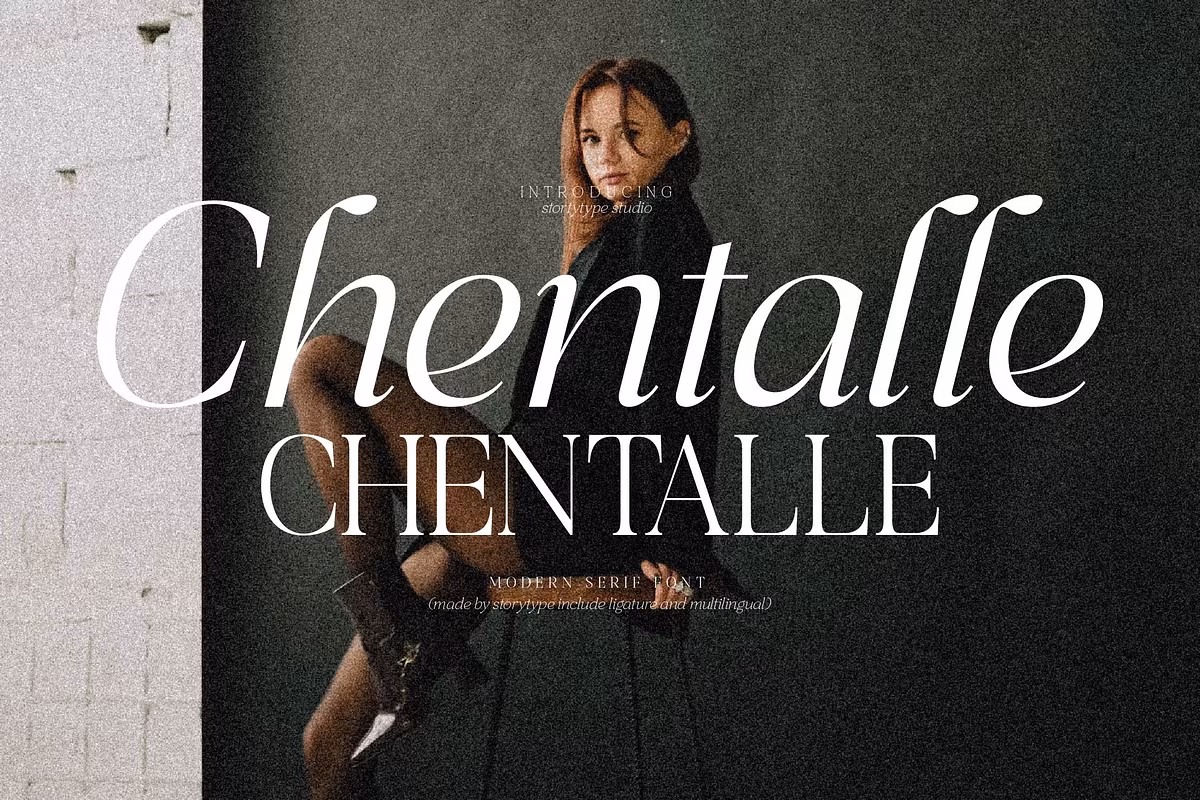
Chentalle Modern Serif Font Free Download
Chentalle Modern Serif Font Free Download is a sleek and elegant serif typeface designed for contemporary designs. With its high contrast strokes, clean lines, and refined details, Chentalle is perfect for luxury branding, editorial layouts, websites, and high-end product packaging. Its sophisticated yet modern design makes it a versatile font for both digital and print applications.
Using the Chentalle Modern Serif Font Free Download adds a touch of sophistication and class to your typography. Whether you're designing a premium logo, crafting a stylish magazine layout, or creating elegant marketing materials, this font brings a professional and timeless look to your work.